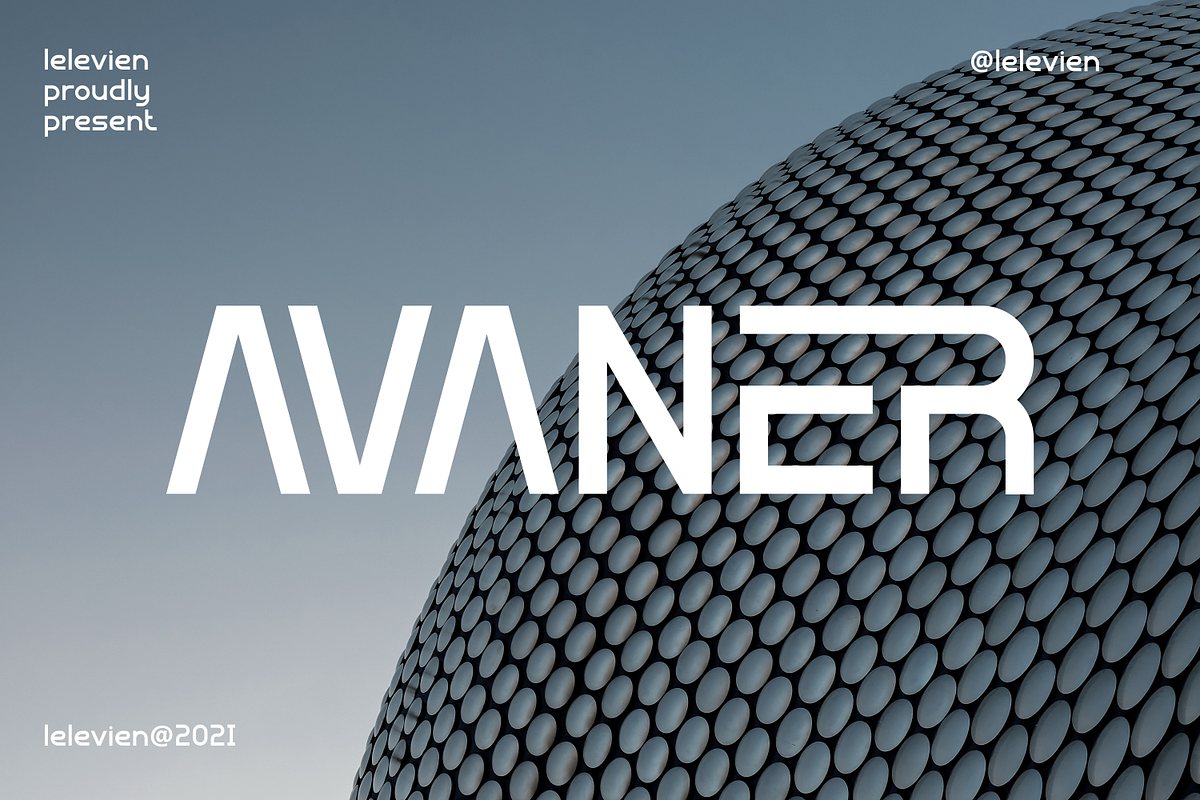
The Avaner Font Free Download is a sleek, modern typeface designed to bring a stylish, professional edge to your designs. With its clean lines and balanced structure, this font is perfect for creating impactful logos, branding, editorial designs, and websites. Whether you’re working on a contemporary project, a corporate brand, or an innovative creative endeavor, Avaner offers a versatile, high-quality look.
Avaner Font Free Download is ideal for designers looking to add a touch of elegance and clarity to their work. Perfect for modern branding, professional marketing materials, and sleek digital content, this font will enhance your designs with its sophisticated style. Download it today and elevate your creative projects with the fresh, minimalistic look of Avaner!